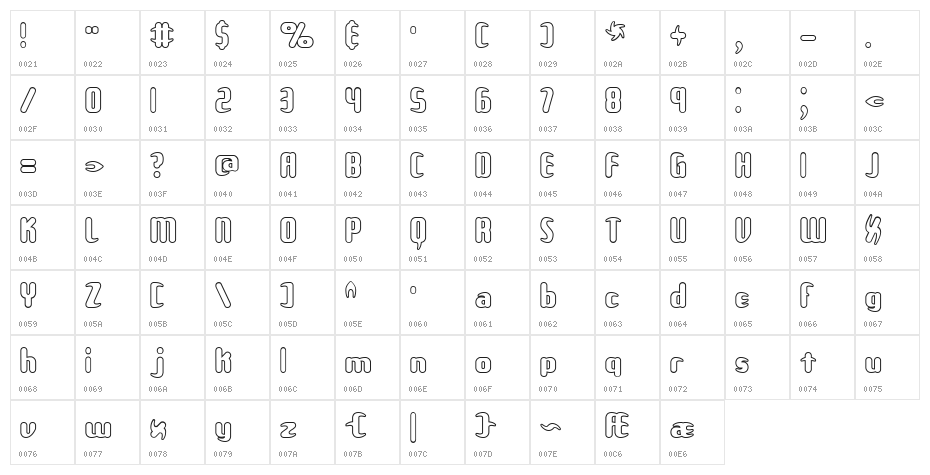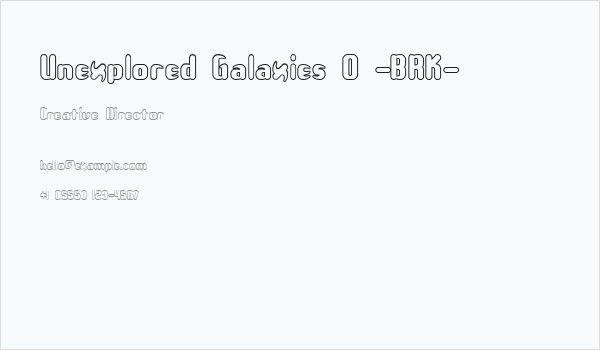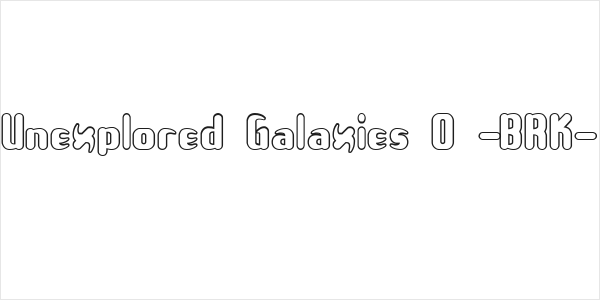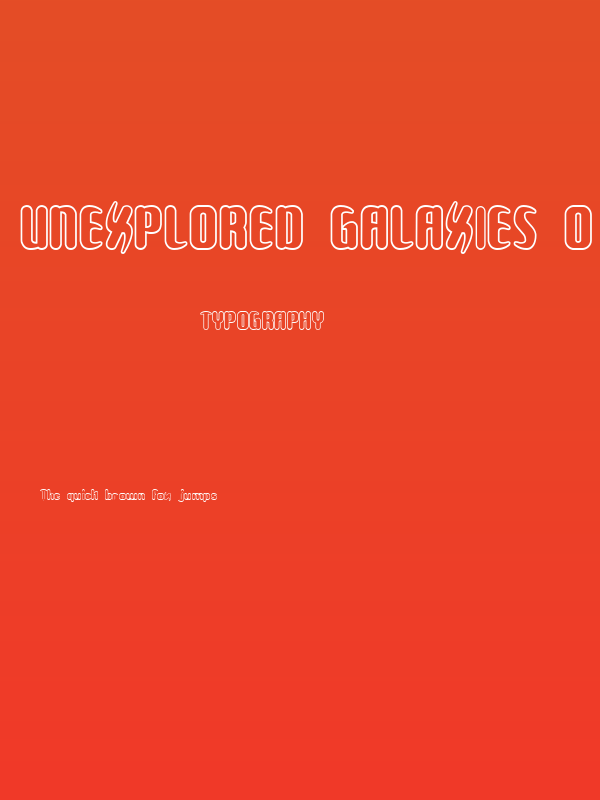
Unexplored Galaxies O -BRK- Font
Unexplored Galaxies O -BRK- Description
This font features a bold, outlined style with a playful and futuristic aesthetic. The characters are rounded and have a bubble-like appearance, giving them a unique and eye-catching look. The uppercase and lowercase letters maintain a consistent style, with smooth curves and a uniform thickness throughout. The numbers and special characters follow the same design principles, ensuring a cohesive appearance across all glyphs. This font's distinct outline and rounded edges make it ideal for projects that require a modern and fun touch.
| Proposed Projects | Ideal for sci-fi themed posters, children's book covers, video game graphics, and branding for tech startups. |